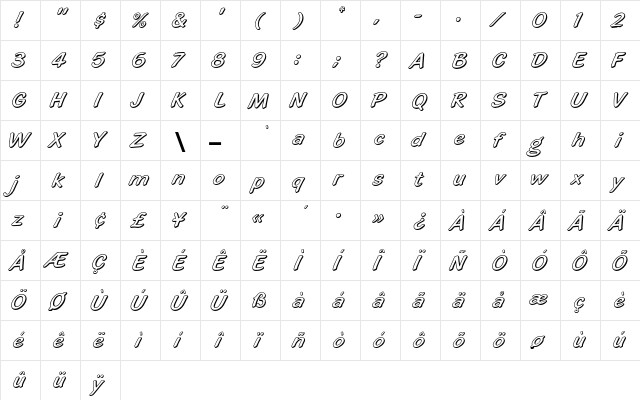
HighlightEF Regular
Design Context for HighlightEF Typeface
HighlightEF is a composed and adaptable typeface that performs quietly and consistently across a wide range of design contexts. Its slender proportions lend an understated elegance to any composition.